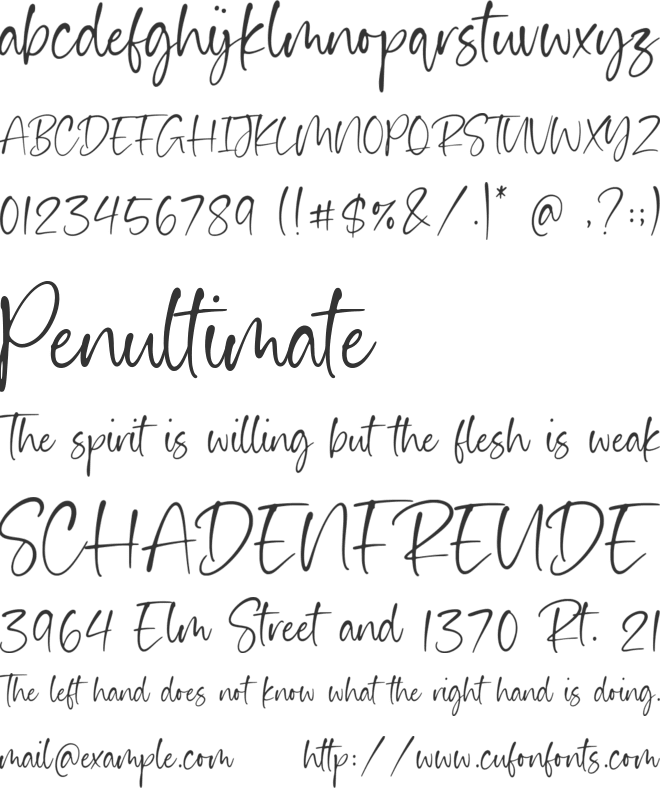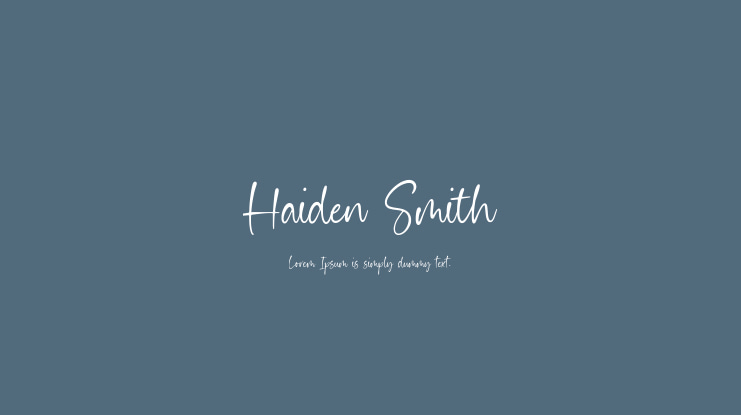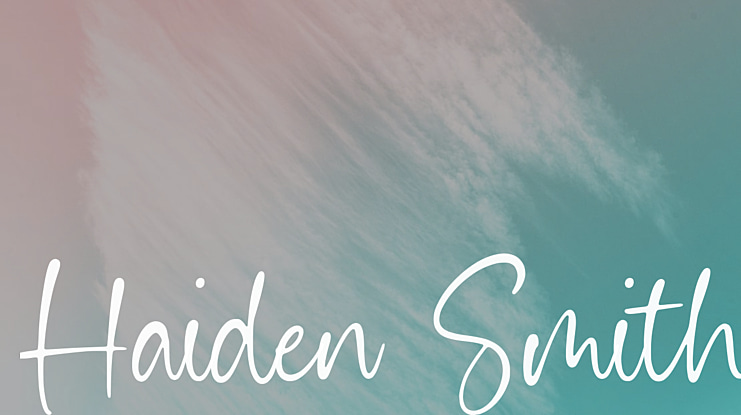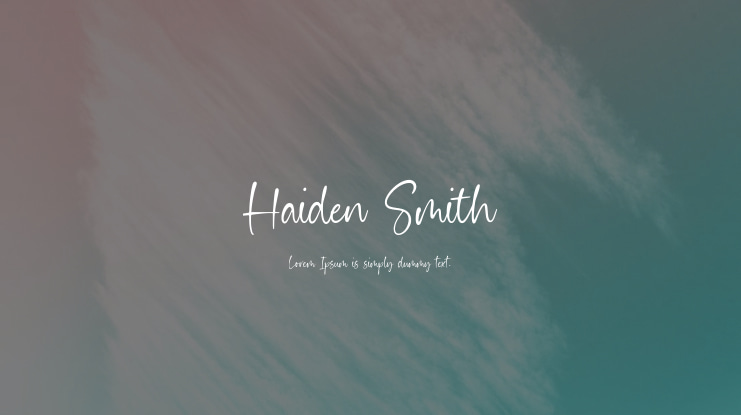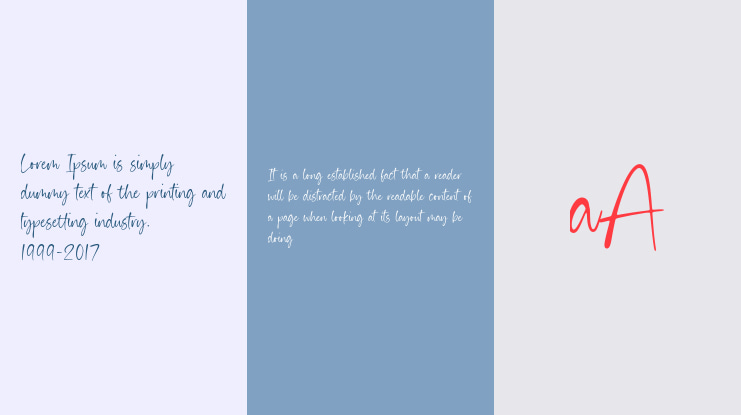
Haiden Smith Font
The Haiden Smith - Stylish Script Font is a modern and contemporary font that will add a touch of warmth and charm to your business. Discover the magic of this font and see for yourself.
Haiden Smith is an ideal choice for various applications, including product packaging, branding projects, magazines, social media, weddings, or simply for adding visually appealing words to any background.
Key features of Haiden Smith include:
• Complete set of standard alphabet and punctuation characters